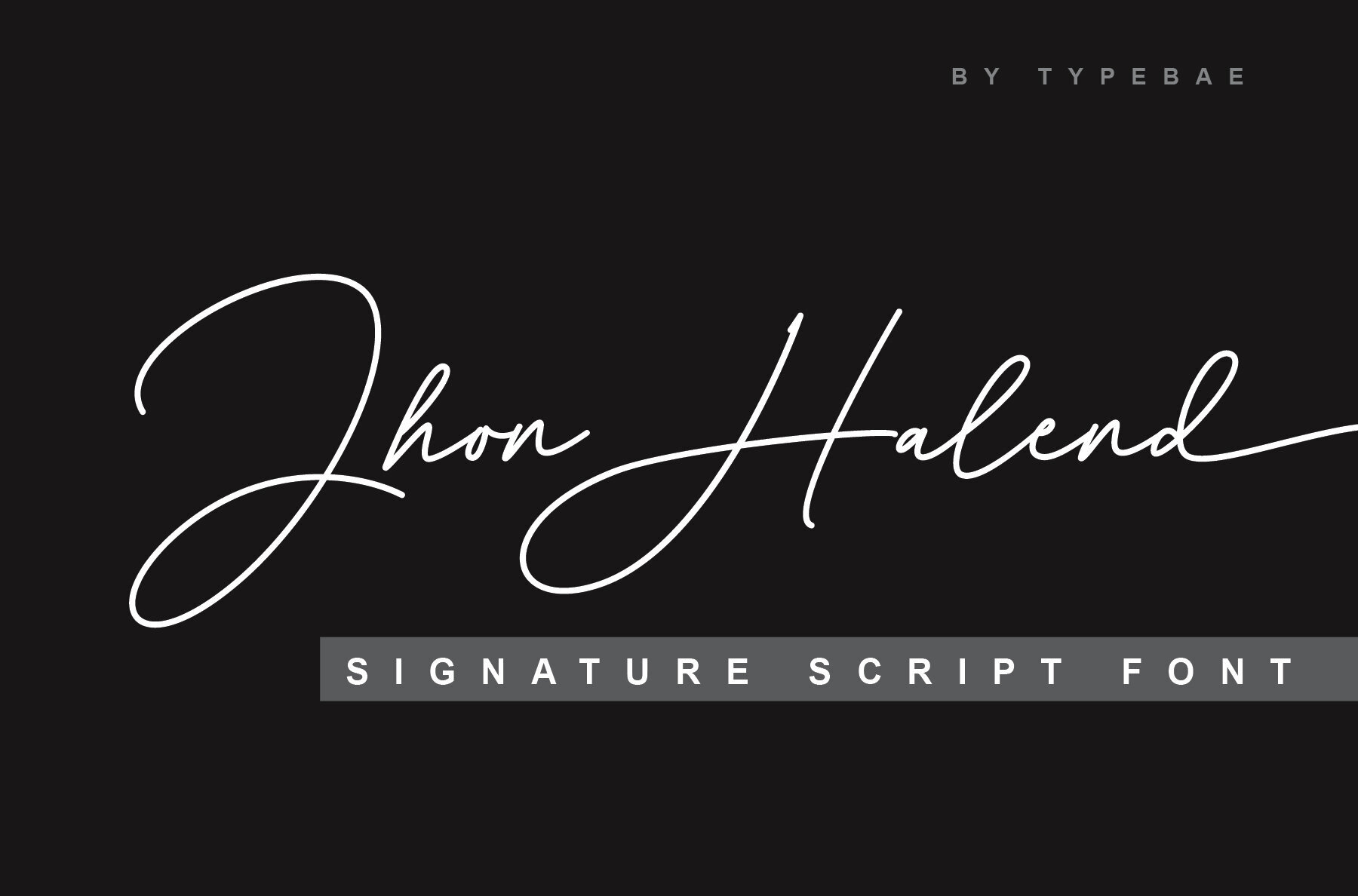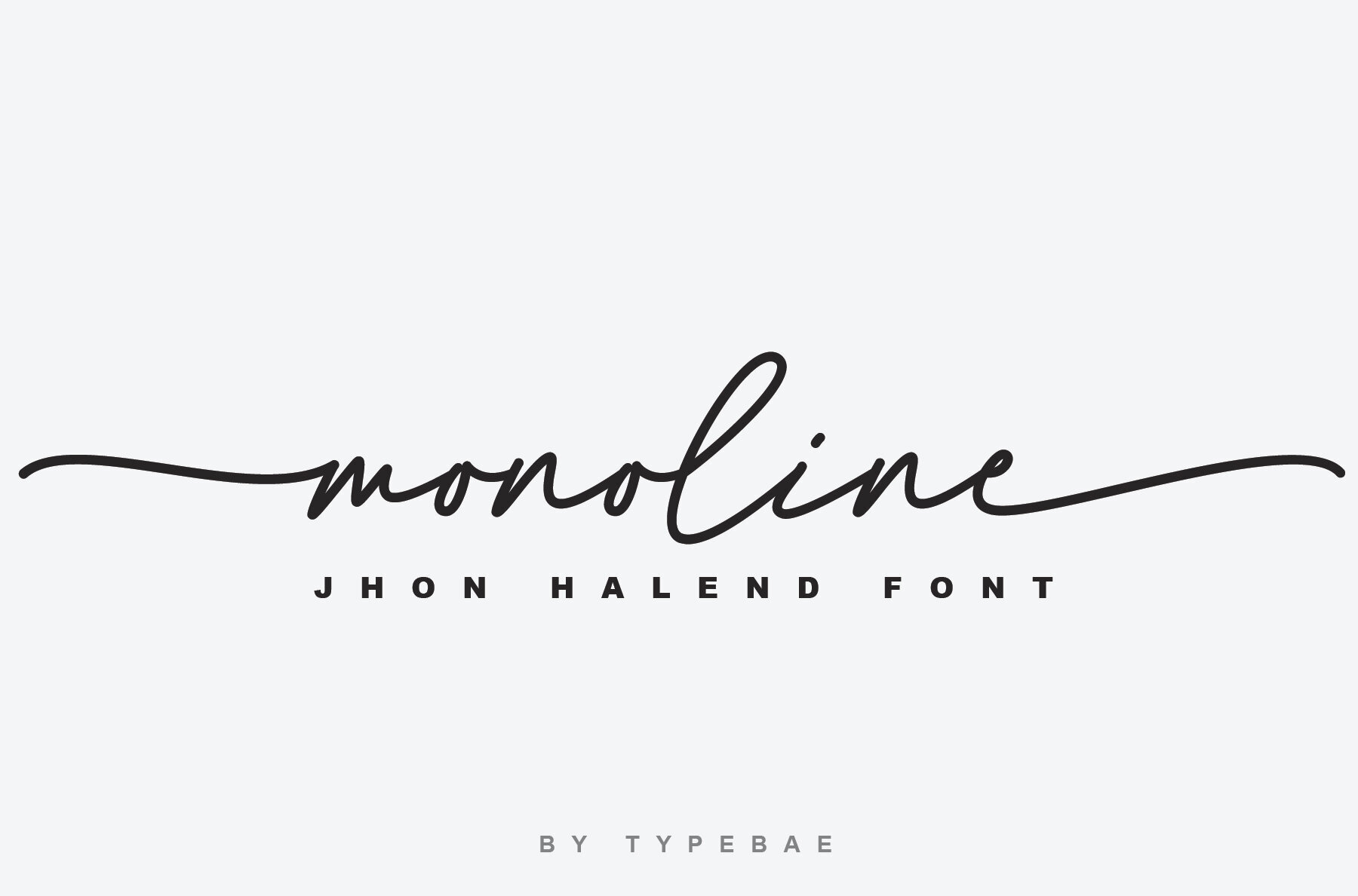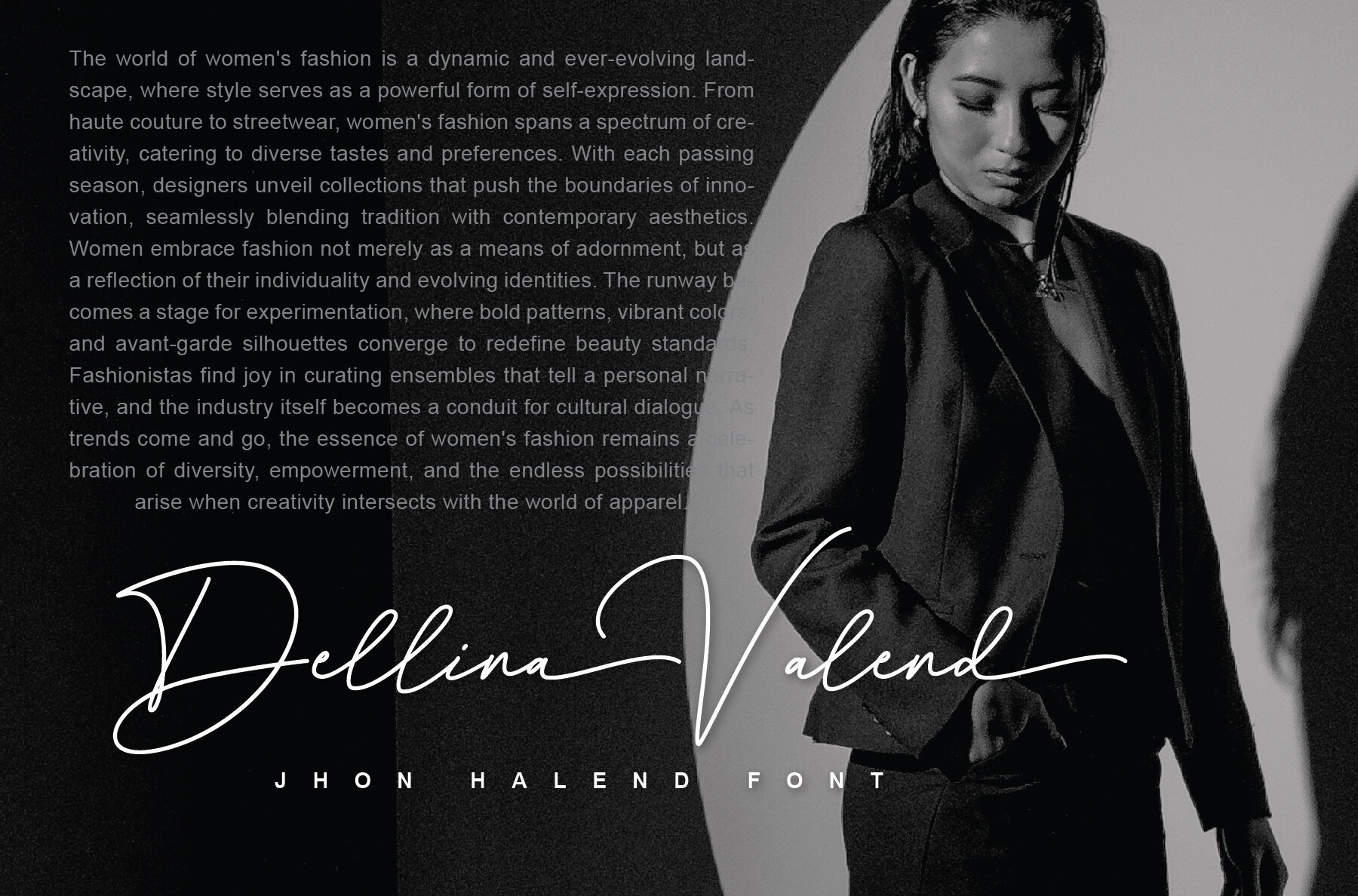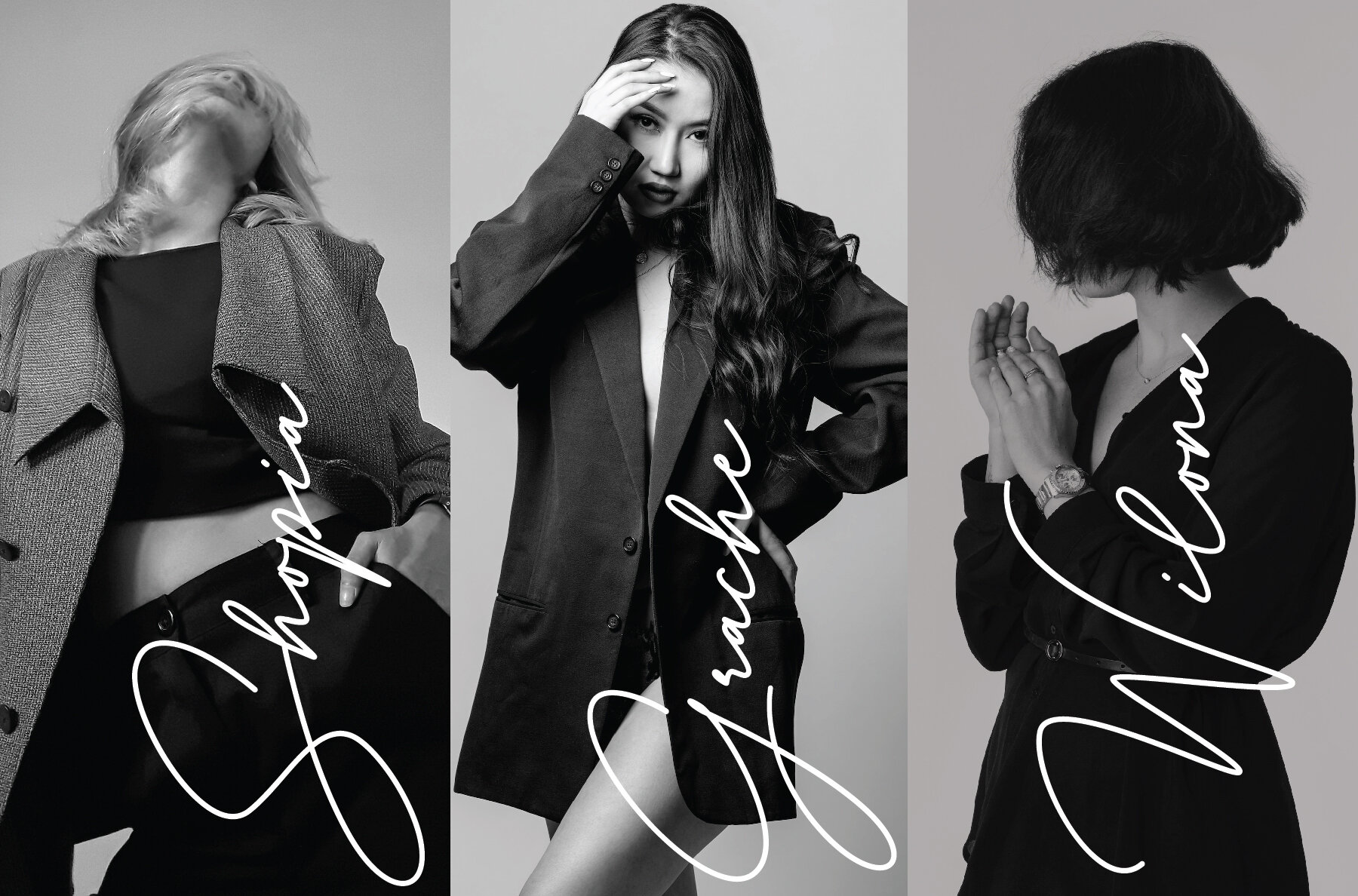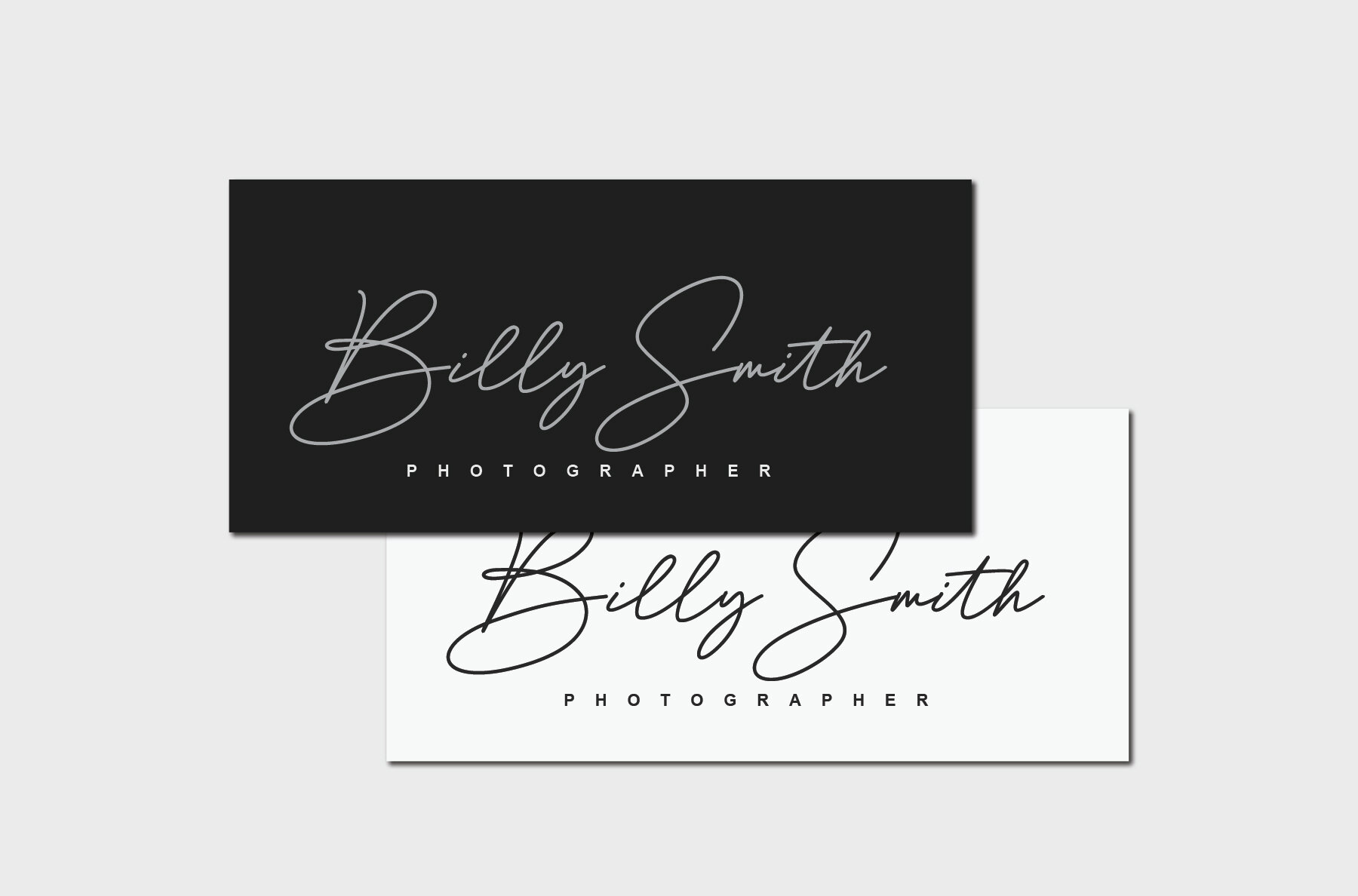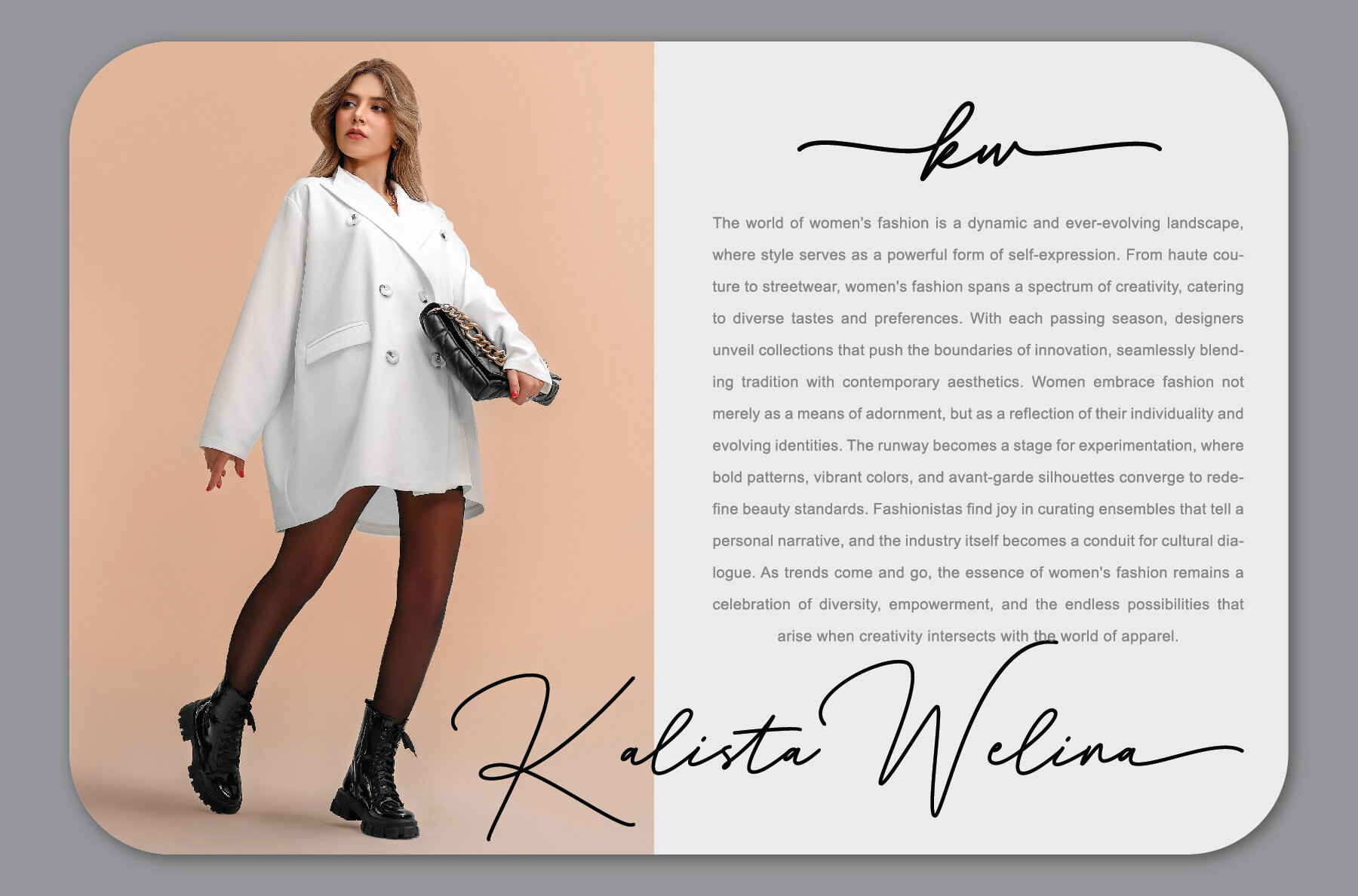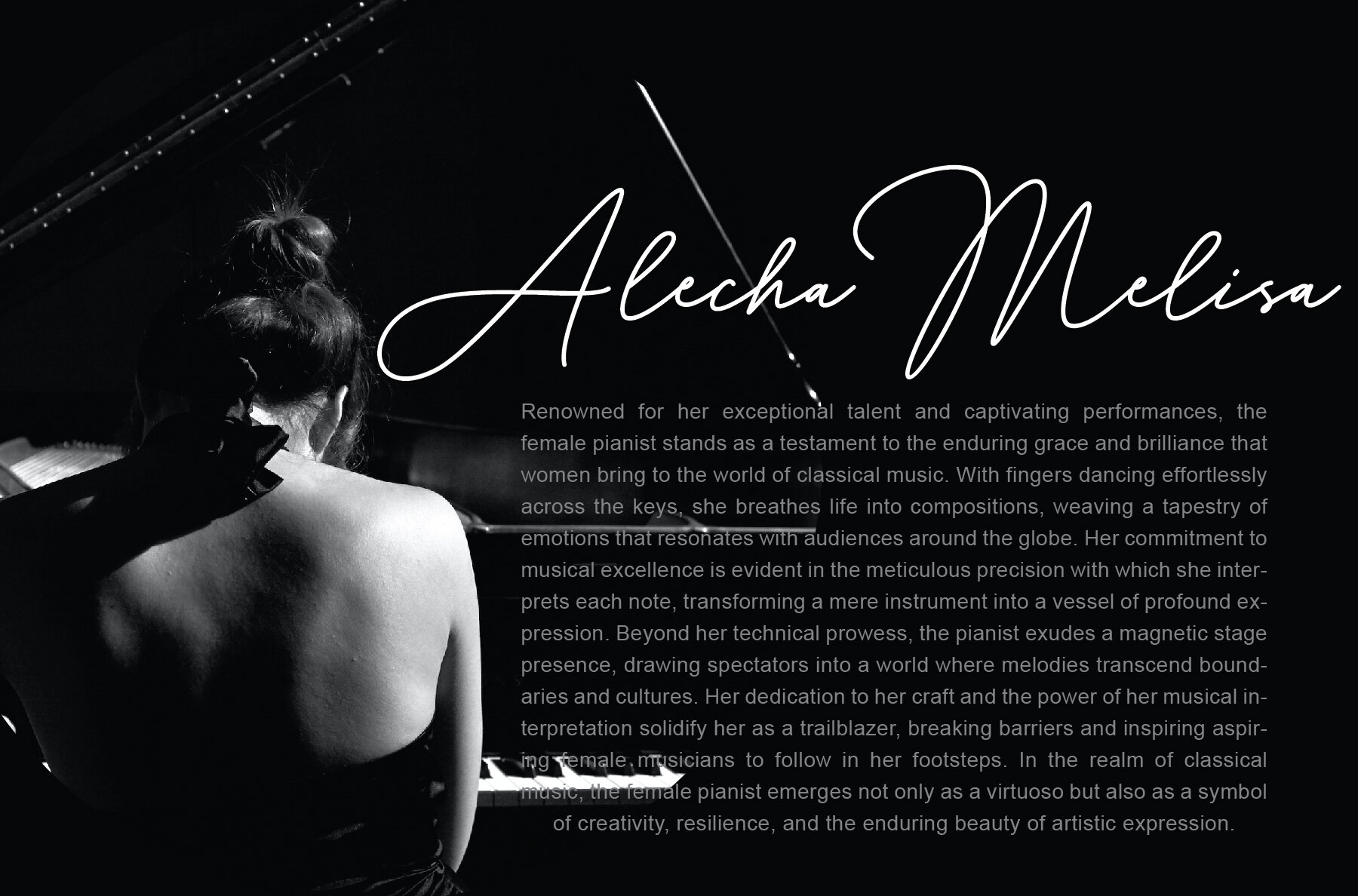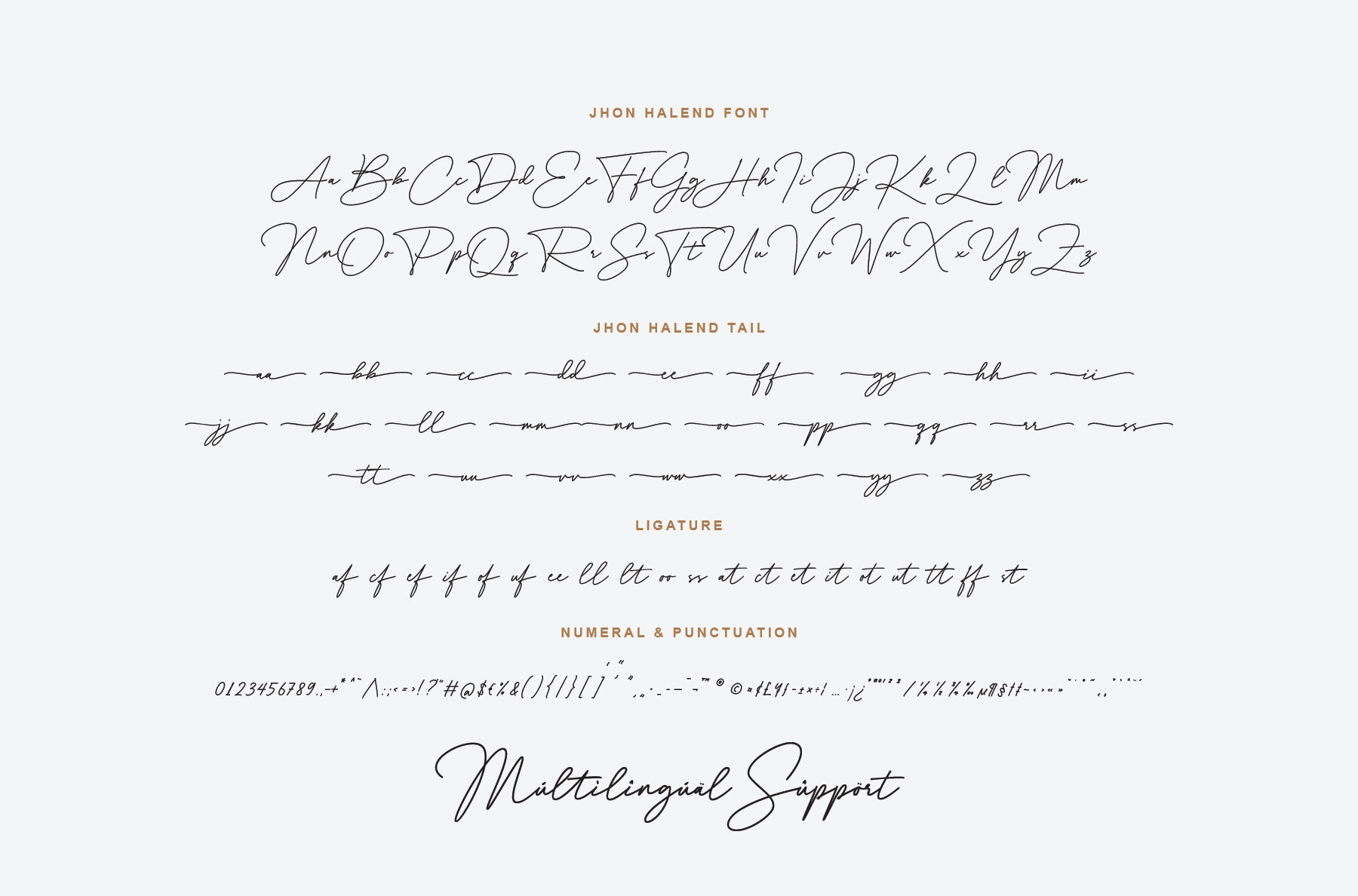
Jhon Halend Font
Jhon Halend offers an authentic handwritten flair with elegant, flowing lines and distinctive tails on each letter. Its seamless connections between select characters add a refined, cohesive touch, enhancing any project that calls for the beauty of natural handwriting. This font stands out with a smooth, effortless style, making it a reliable choice for branding, invitations, packaging, and editorial work. Designed for ease of use, Jhon Halend includes separate files for regular and tail variations—no need for specialized software to access its unique features. Enjoy flexibility in your creative workflow while achieving a polished, sophisticated look.Jhon Halend Signature Font